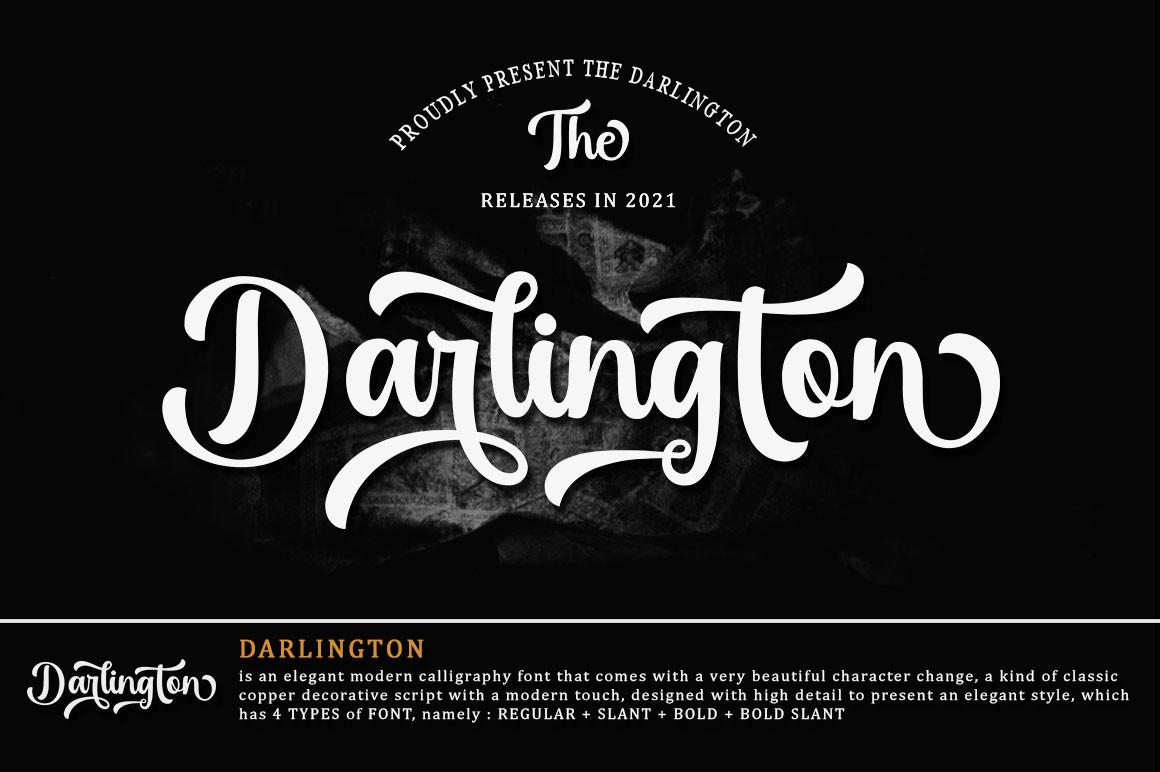
Darlington Font Description
Darlington is one of the elegant calligraphy fonts with a beautiful character change, a kind of classic decorative script with a modern touch. This classic-style font is suitable for invitations, labels, restaurant menus, logos, fashion, make-up, stationery, novels, magazines, books, greeting/wedding cards, packaging, or labels.